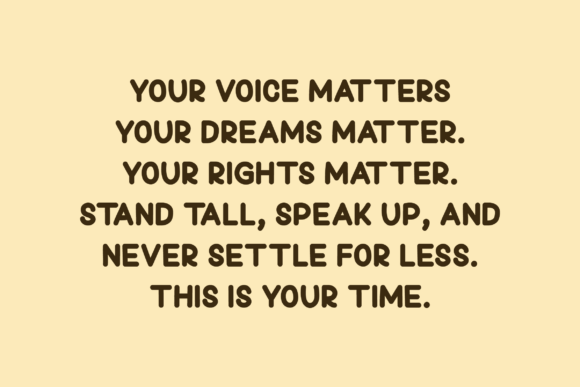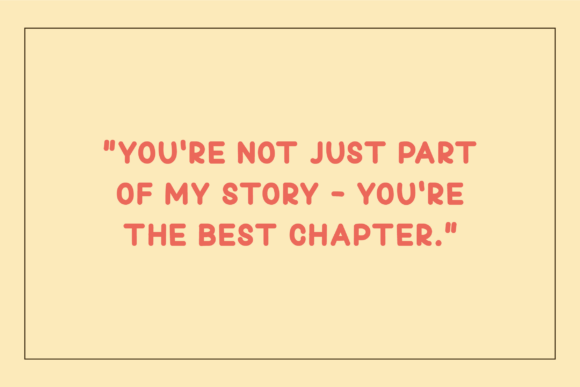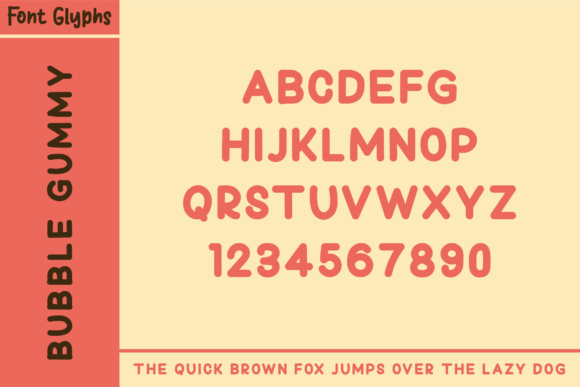
Introducing Bubble Gummy Font: The Perfect Blend of Bold and Charming
In the world of typography, fonts play a crucial role in conveying the tone and personality of a brand. For designers and crafters looking to make a lasting impression, the Bubble Gummy font is an excellent choice. This handwritten font strikes the perfect balance between a strong, bold presence and a charming, personal touch, making it ideal for a wide range of applications.
The Unique Characteristics of Bubble Gummy Font
Bubble Gummy font boasts a distinctive style that sets it apart from other fonts. Its bold and chunky letters exude confidence and strength, while its handwritten nature adds a touch of warmth and approachability. The font’s unique blend of characteristics makes it perfect for designs that require a professional yet friendly aesthetic.
Versatility at Its Best: Use Cases for Bubble Gummy Font
One of the standout features of the Bubble Gummy font is its versatility. It can be used across various platforms and mediums, including:
- Branding: Create a memorable brand identity with Bubble Gummy font. Its bold and charming style makes it perfect for logos, business cards, and letterheads.
- Packaging: Add a personal touch to your product packaging with this font. It works well for labels, tags, and product descriptions.
- Social Media: Make your social media posts stand out with Bubble Gummy font. Use it to create engaging captions, graphics, and stories.
- Print: From brochures and flyers to posters and banners, this font is perfect for any print material that requires a bold and charming touch.
Why Choose Bubble Gummy Font?
There are several reasons why designers and crafters should consider using Bubble Gummy font in their projects:
- Unique Style: The font’s distinctive style ensures that your designs stand out from the crowd.
- Warmth and Authenticity: The handwritten nature of Bubble Gummy font adds a touch of warmth and authenticity to any design.
- Professional yet Approachable: The font’s bold and charming style makes it perfect for designs that require a professional yet approachable aesthetic.
- Easy to Read: The font’s clear and legible design ensures that your message is conveyed effectively.
Tips for Using Bubble Gummy Font Effectively
To get the most out of Bubble Gummy font, consider the following tips:
- Pair it with Other Fonts: Experiment with pairing Bubble Gummy font with other fonts to create a unique and visually appealing design.
- Use it for Headings: The font’s bold style makes it perfect for headings and titles. Use it to draw attention to important information.
- Experiment with Colors: Don’t be afraid to experiment with different colors to add depth and interest to your design.
| Font Name | Bubble Gummy Font |
| Author | Goliatte Studio |
In conclusion, the Bubble Gummy font is an excellent choice for designers and crafters looking to add a touch of personality to their designs. Its unique blend of bold and charming characteristics makes it perfect for a wide range of applications, from branding and packaging to social media and print. With its versatility, warmth, and authenticity, Bubble Gummy font is sure to make an impact and leave a lasting impression.
Get Ready to Make an Impact with Bubble Gummy Font